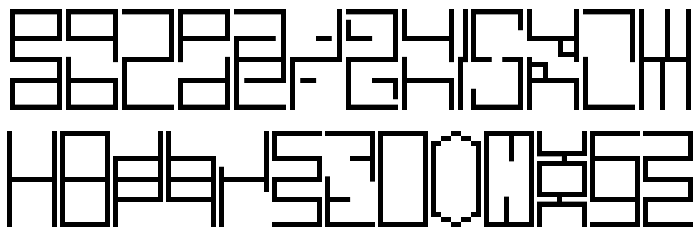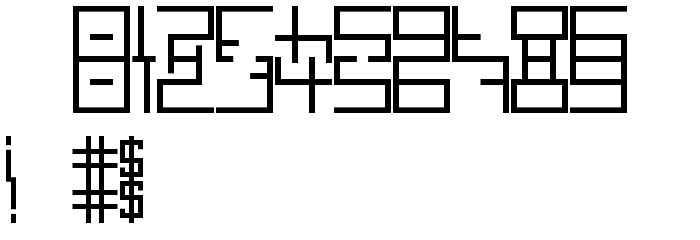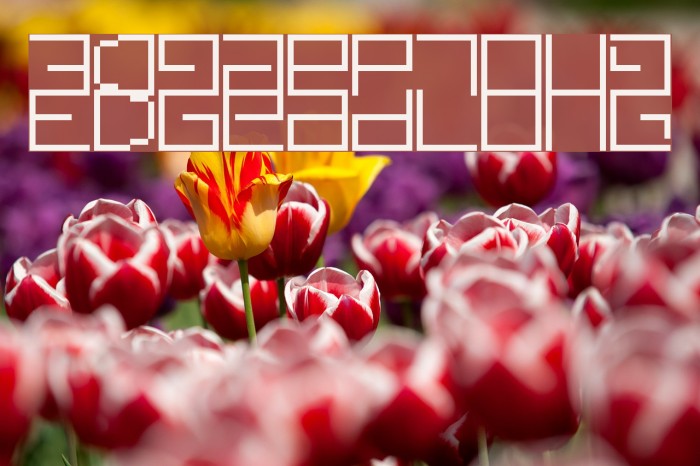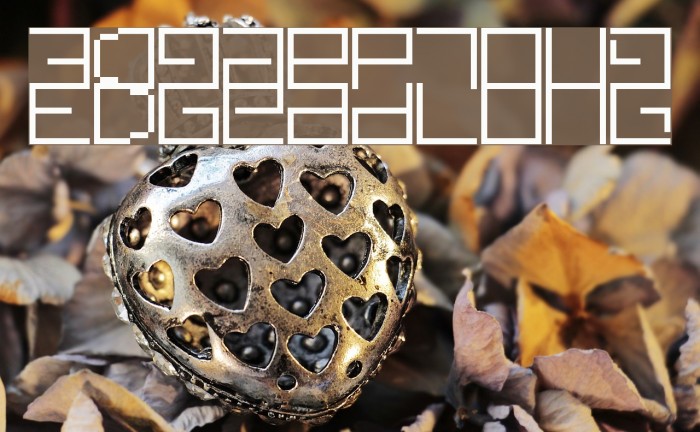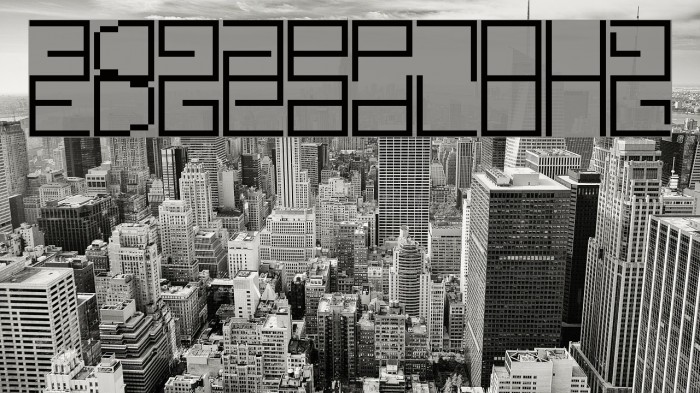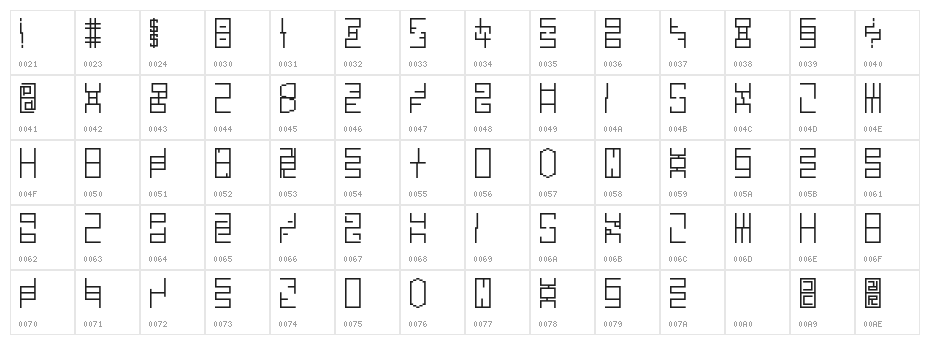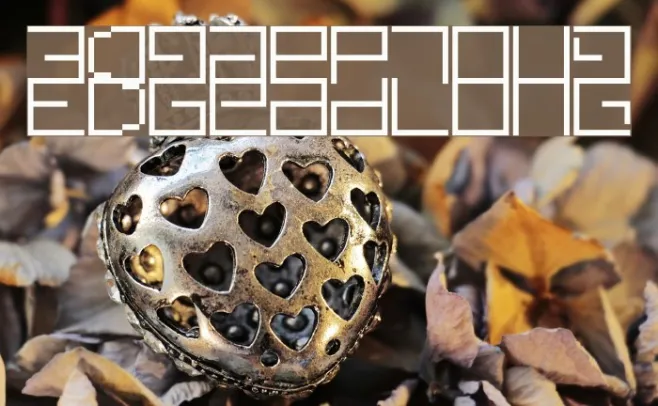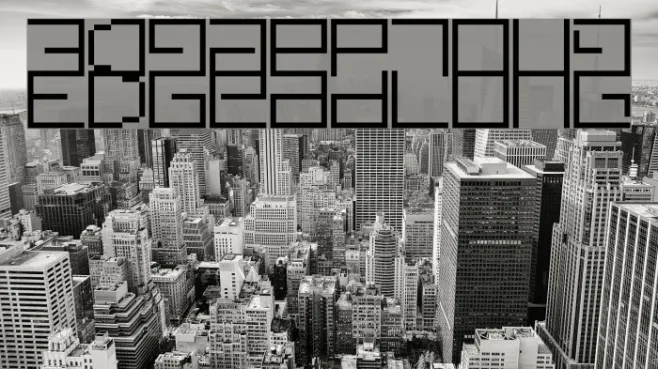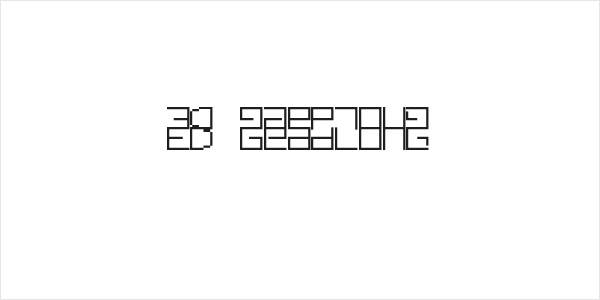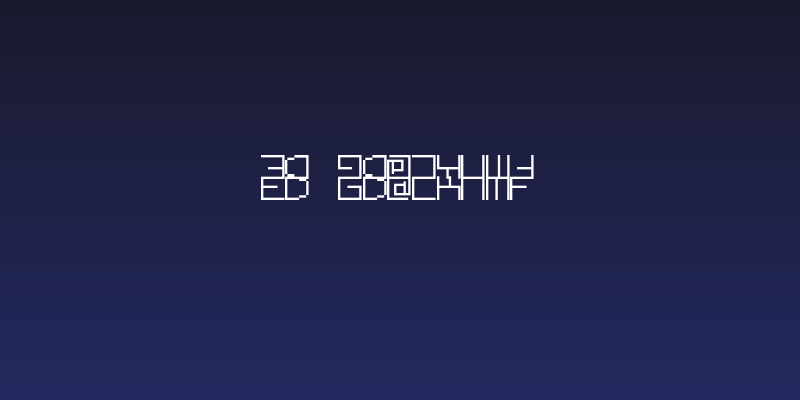
FE-Headlong Font
This font features a unique, geometric design with a grid-like structure. Each character is composed of straight lines and right angles, creating a digital, pixelated appearance. The uniformity in line thickness and spacing gives it a cohesive and structured look. The characters are distinct and easily recognizable, making it suitable for digital displays or themes that require a modern, tech-inspired aesthetic. The font's style is reminiscent of early computer graphics, providing a nostalgic yet futuristic feel.
A geometric, grid-based font with a digital, pixelated style.
- Proposed Projects: Ideal for digital displays, tech-themed designs, video game graphics, or any project requiring a modern, digital aesthetic.
- Use Case: Headlines, Logos, Digital Displays